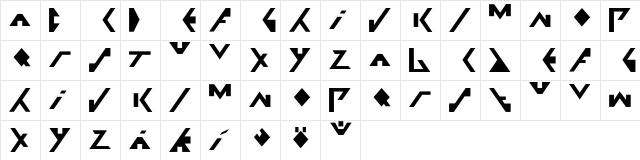
Xfus Regular Free Font
Xfus Regular
Design Context for Xfus
Xfus is a composed and adaptable typeface that performs quietly and consistently across a wide range of design contexts.